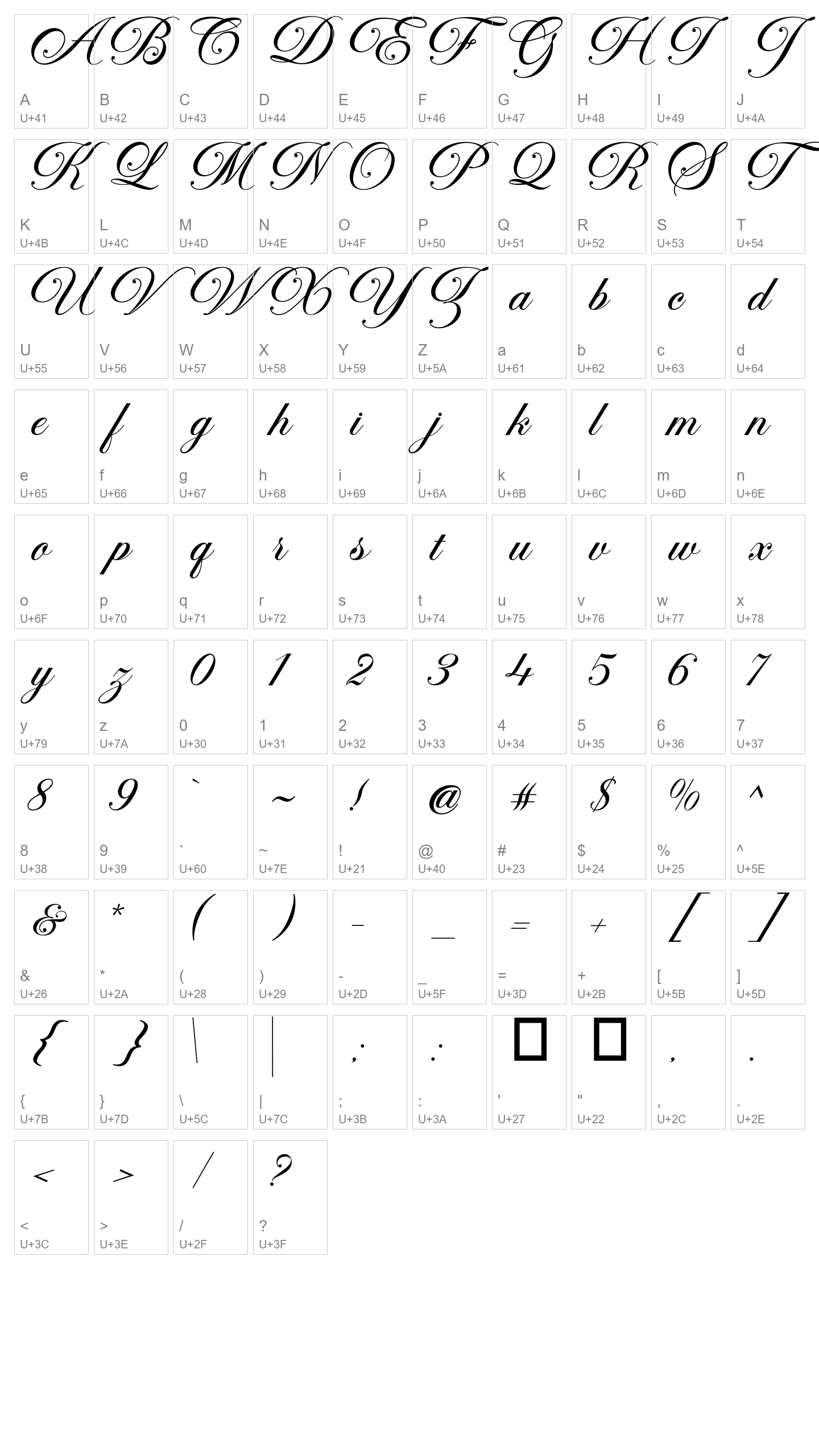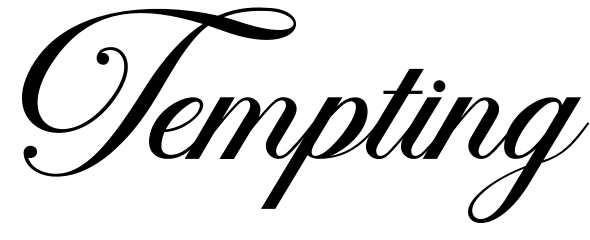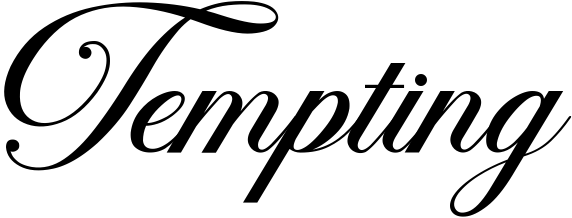
Tempting
Tempting Script is one of the Elegant script fonts that comes with a very beautiful character change, a kind of classic copper decorative script with a modern touch, designed with high detail to present an elegant style.